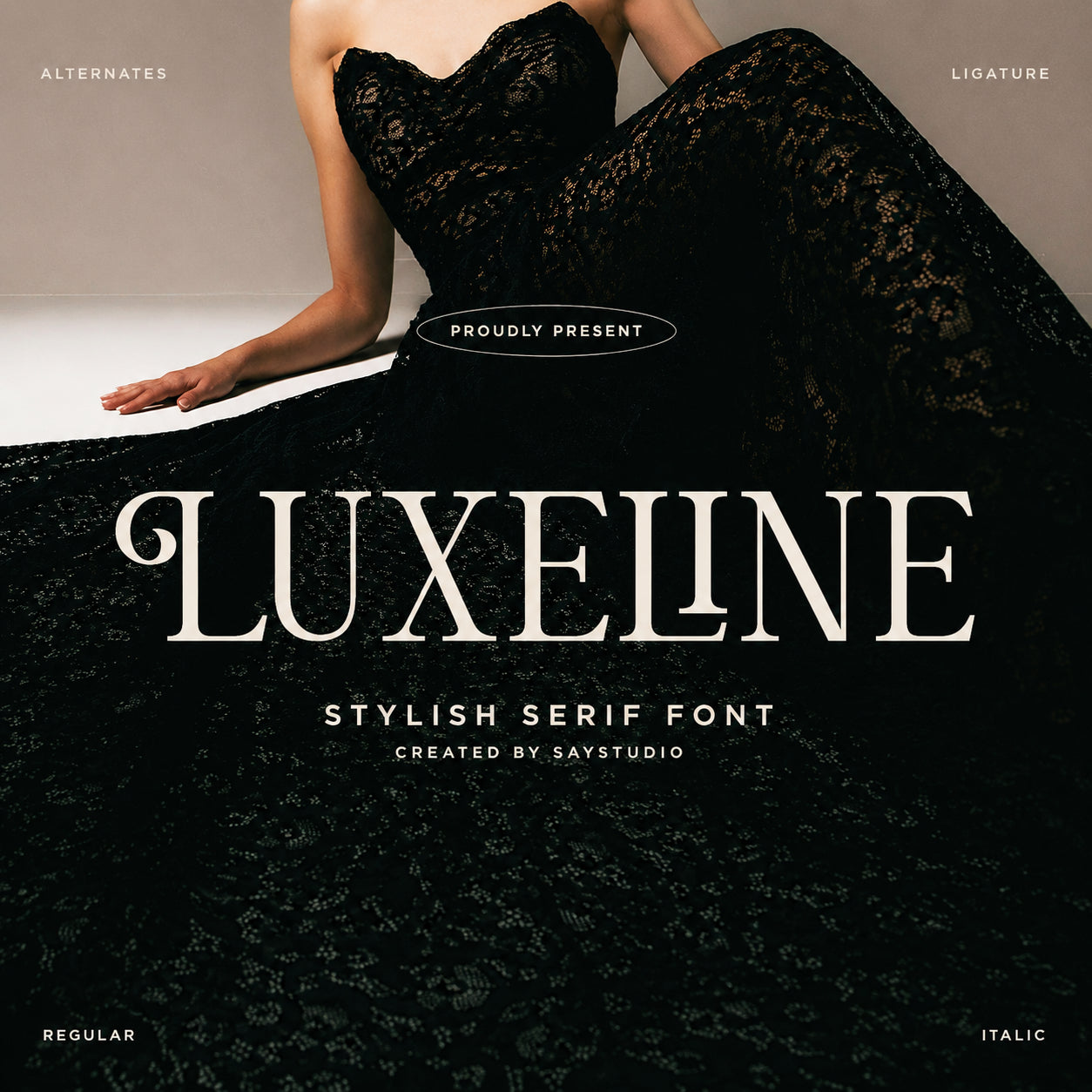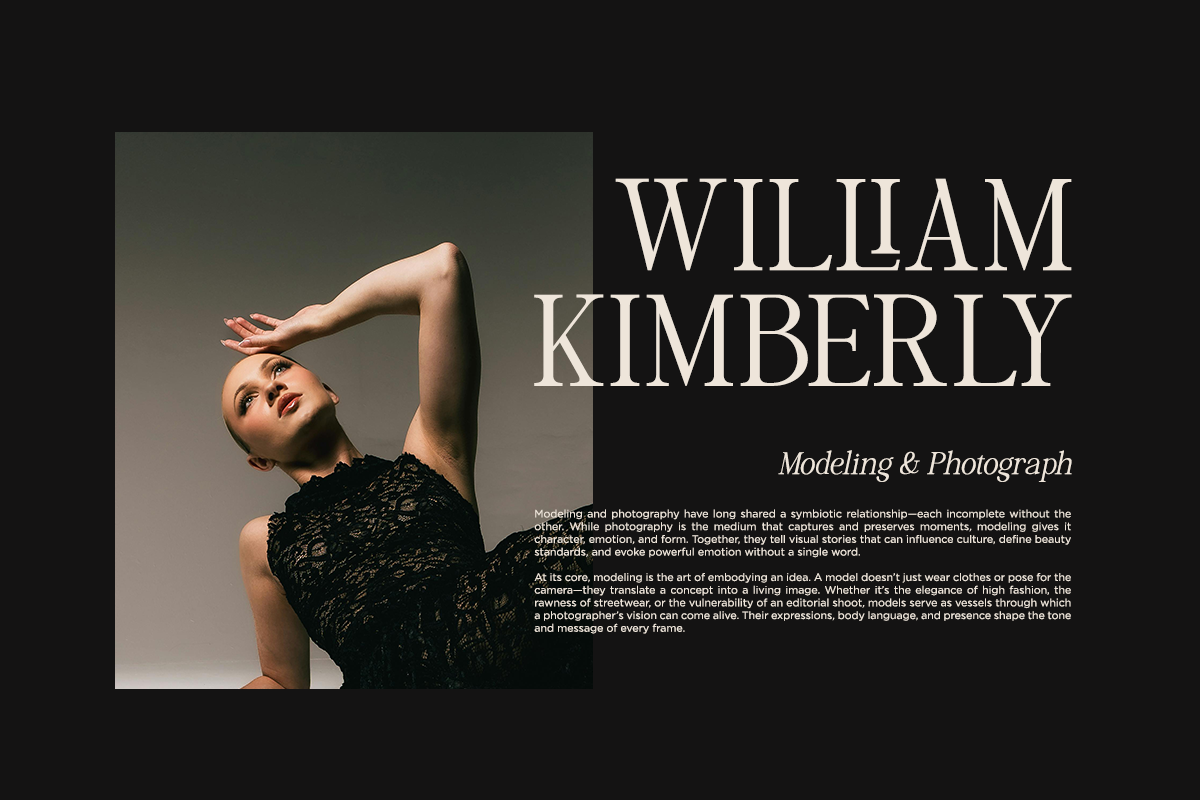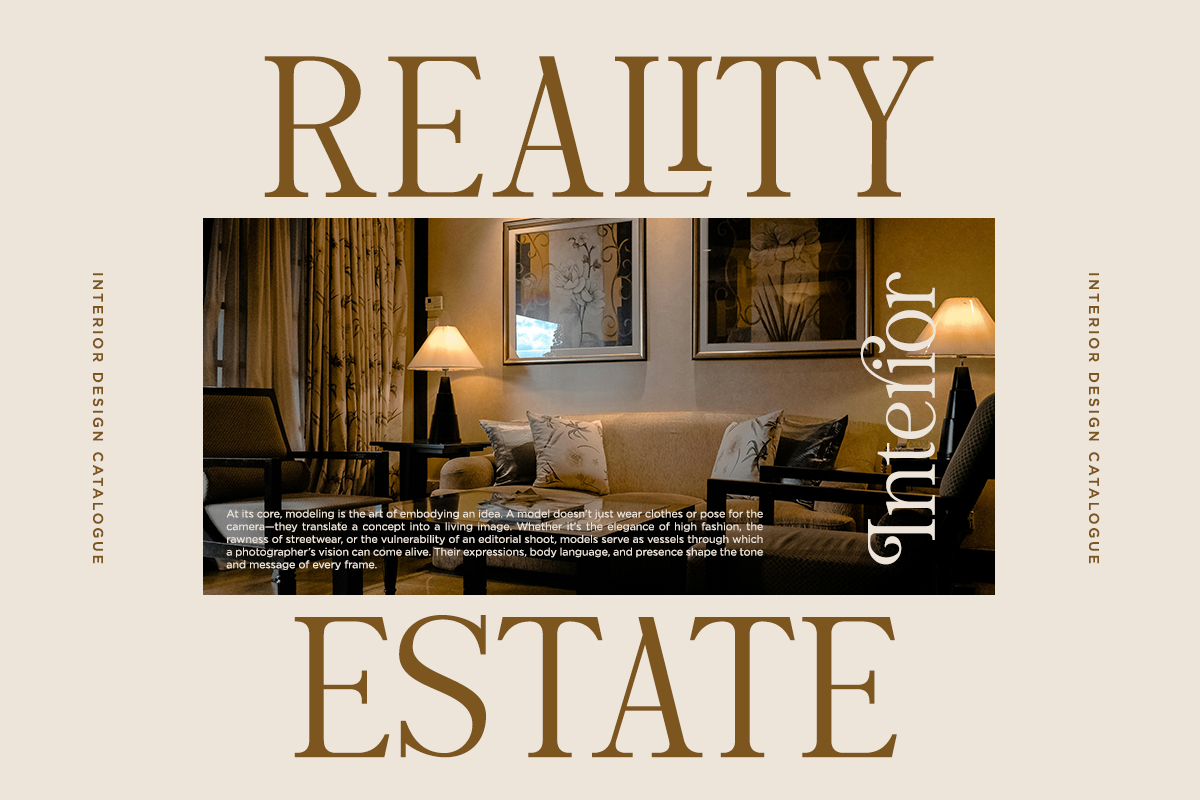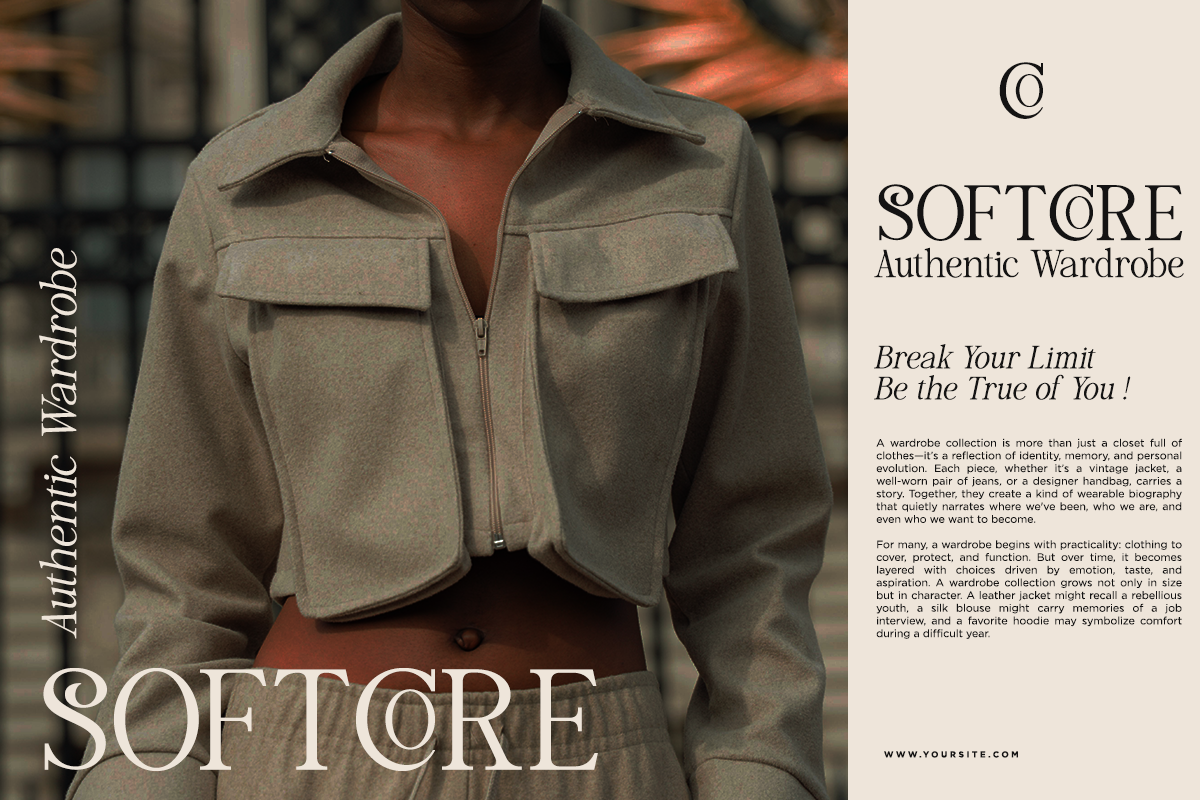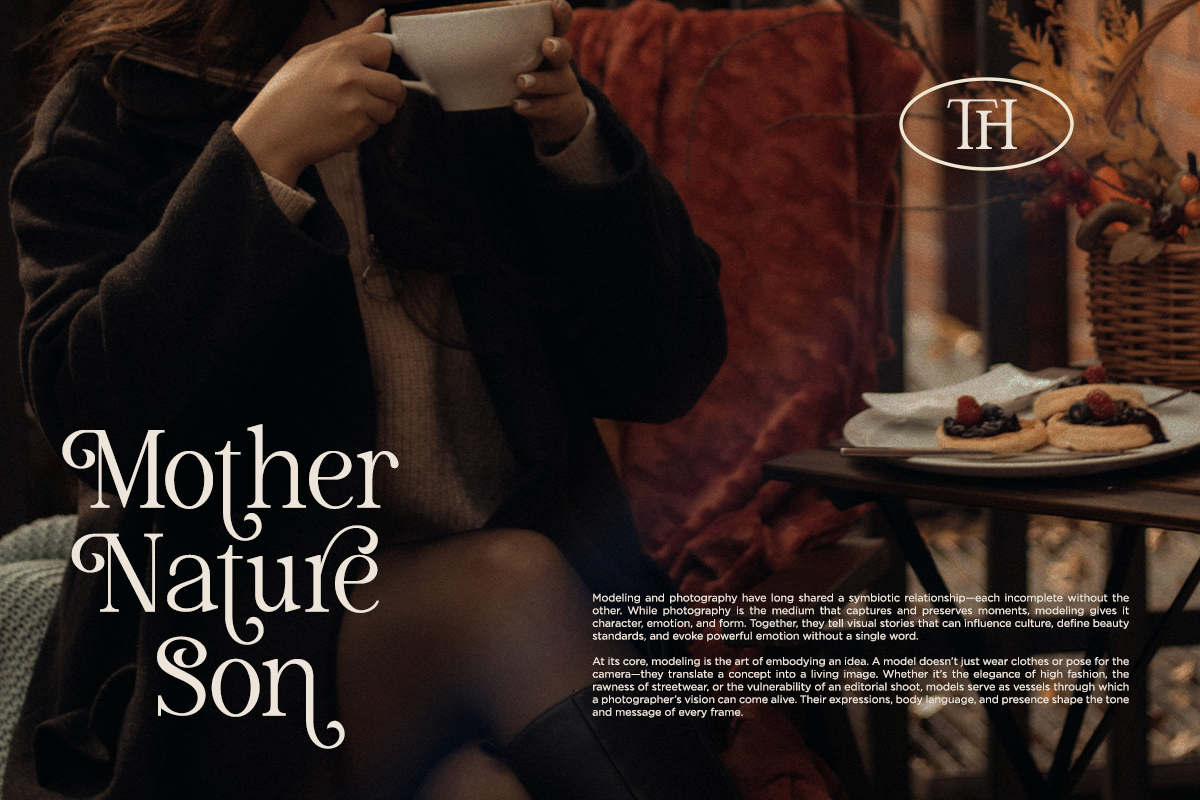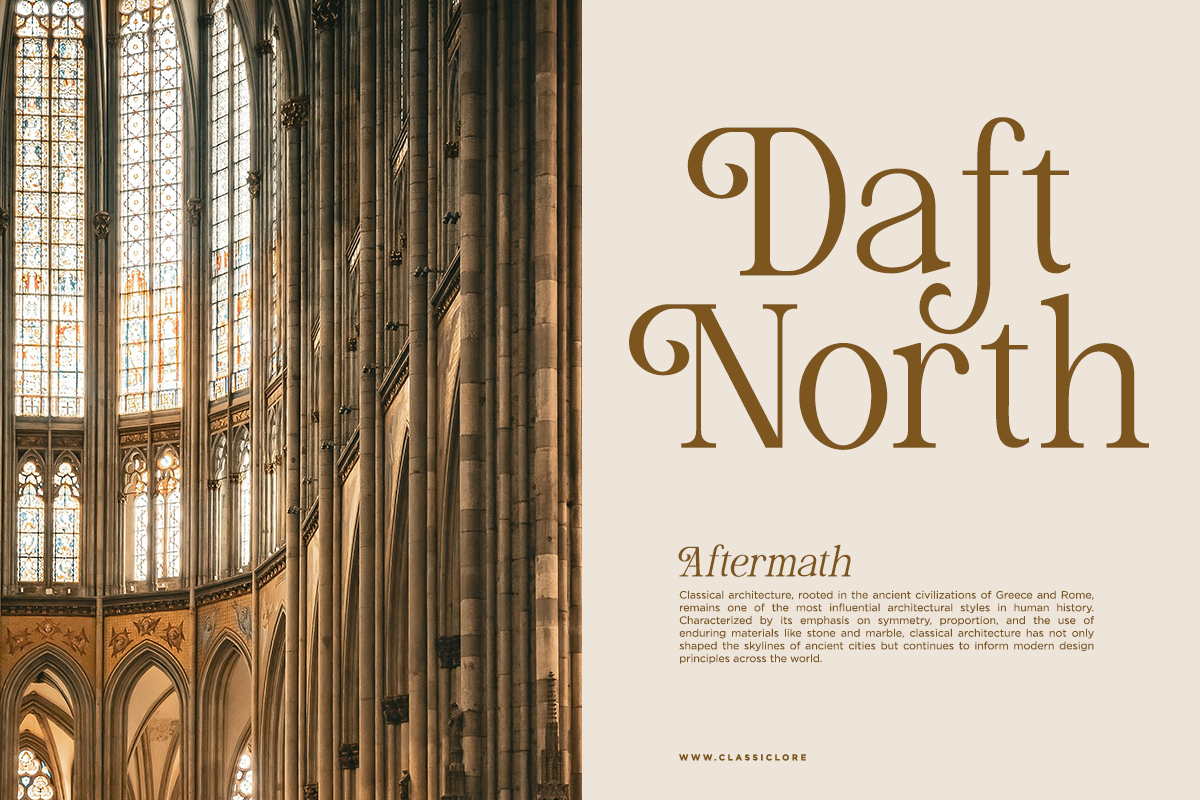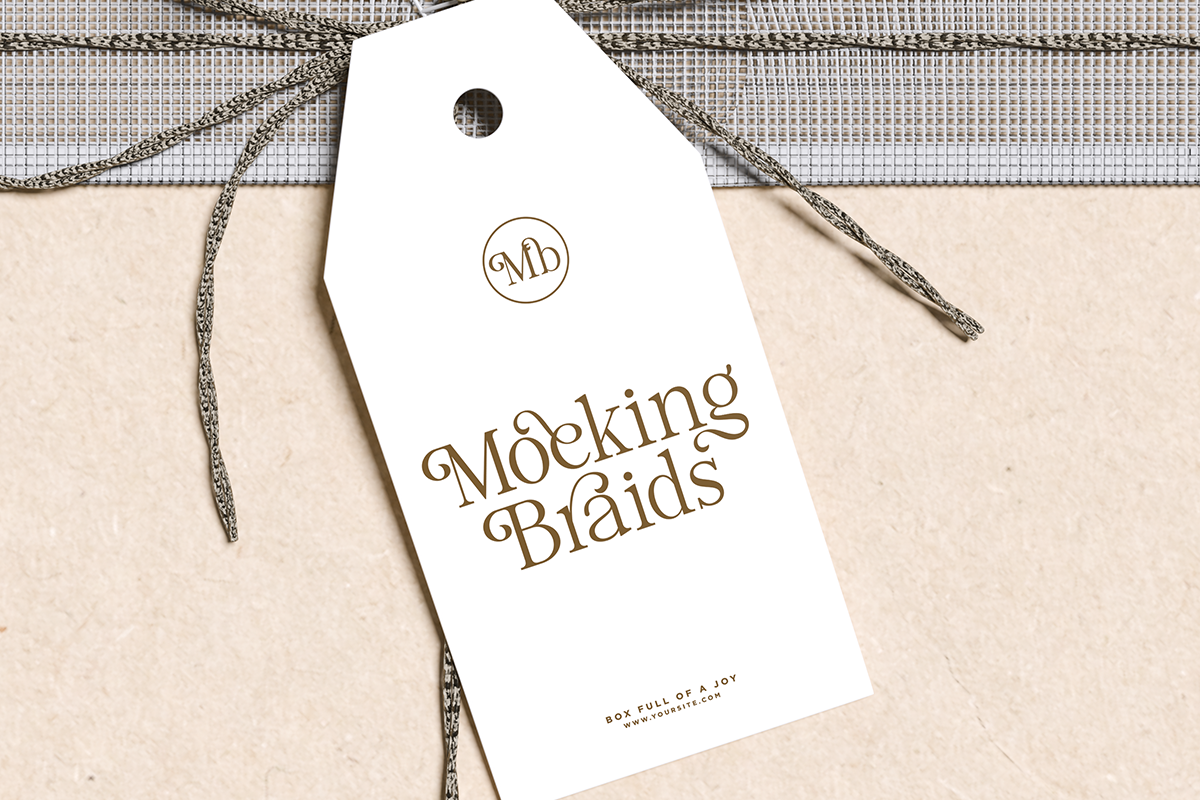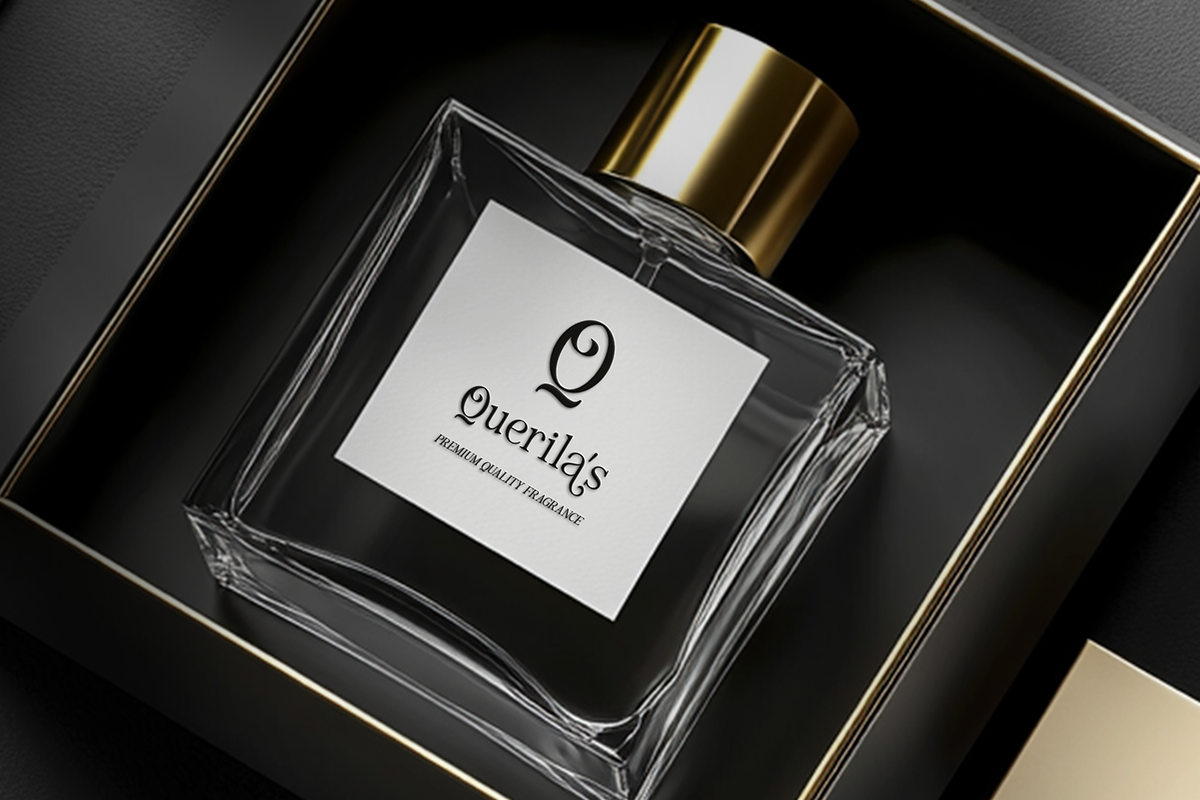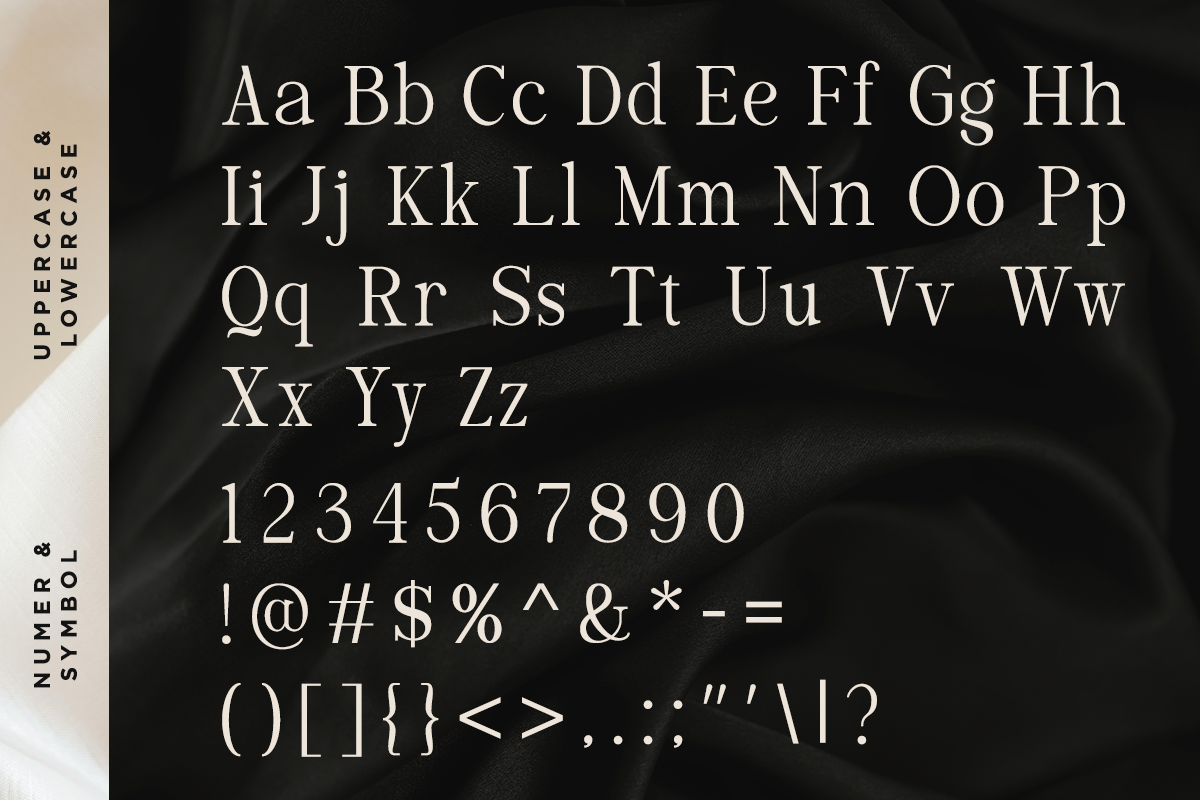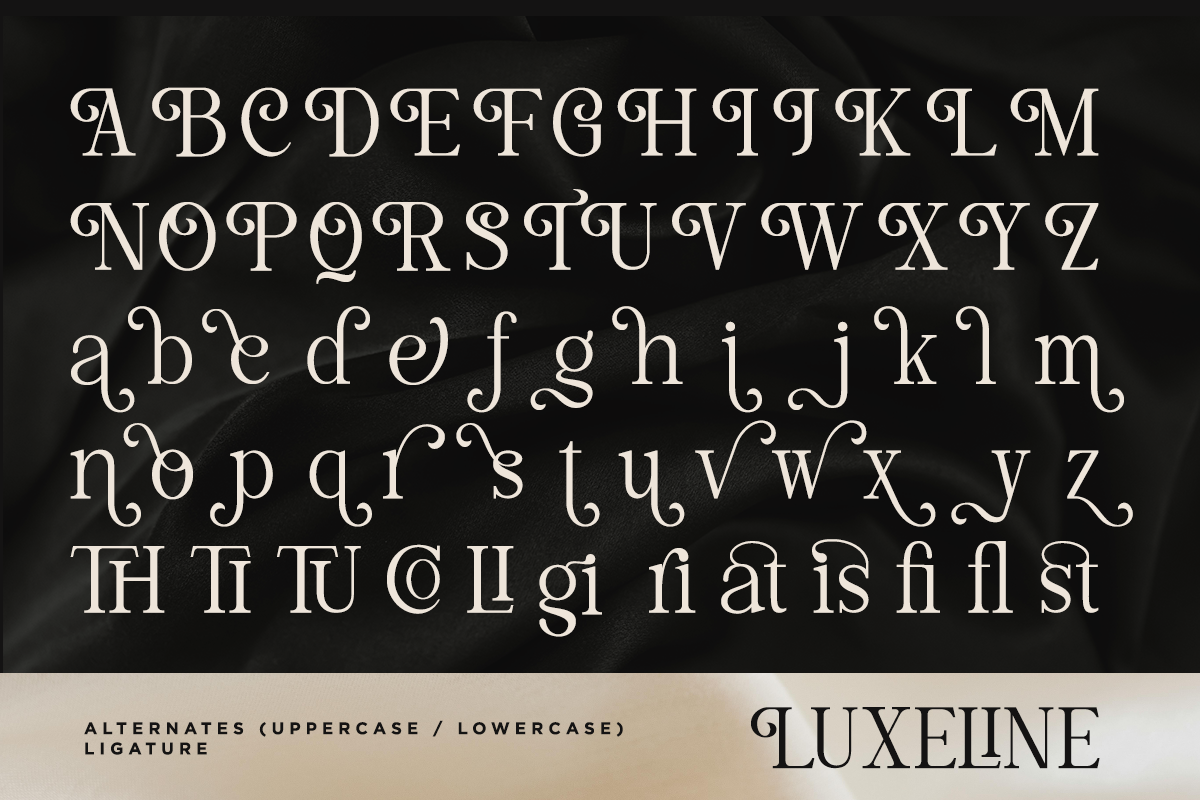
Luxeline - Luxury Ligature Serif Font
Luxeline is a timeless elegant serif font designed to bring sophistication, luxury, and refinement to every creative project. Featuring graceful letterforms, stylish ligatures, and beautifully balanced proportions, Luxeline delivers a premium editorial aesthetic that instantly elevates branding, fashion campaigns, beauty products, wedding stationery, luxury packaging, and high-end visual identities. Its classic elegance paired with modern details makes it an ideal choice for designers seeking a serif typeface that feels both contemporary and enduring.
Crafted with versatility in mind, Luxeline includes Regular and Italic styles, allowing you to create expressive typography with effortless contrast and visual rhythm. The carefully designed ligatures and alternate characters provide a polished, custom-made appearance, making every logo, headline, editorial layout, social media campaign, magazine cover, and product packaging look refined and distinctive.
Luxeline also comes with uppercase and lowercase letters, numerals, punctuation, symbols, multilingual language support, and OpenType features for professional typography. Whether you're designing luxury branding, boutique logos, cosmetics packaging, restaurant identities, wedding invitations, fashion editorials, or premium marketing materials, Luxeline delivers an elegant serif experience that combines beauty, readability, and timeless appeal.
Stylistic Alternates
Stylistic Ligatures
Luxeline is a luxury ligature serif font that features elegant letterforms, stylish ligatures, and balanced proportions, available in Regular and Italic styles. It includes uppercase and lowercase letters, numerals, punctuation, symbols, and multilingual support, with OTF, TTF, and WOFF file formats for versatile typography applications.